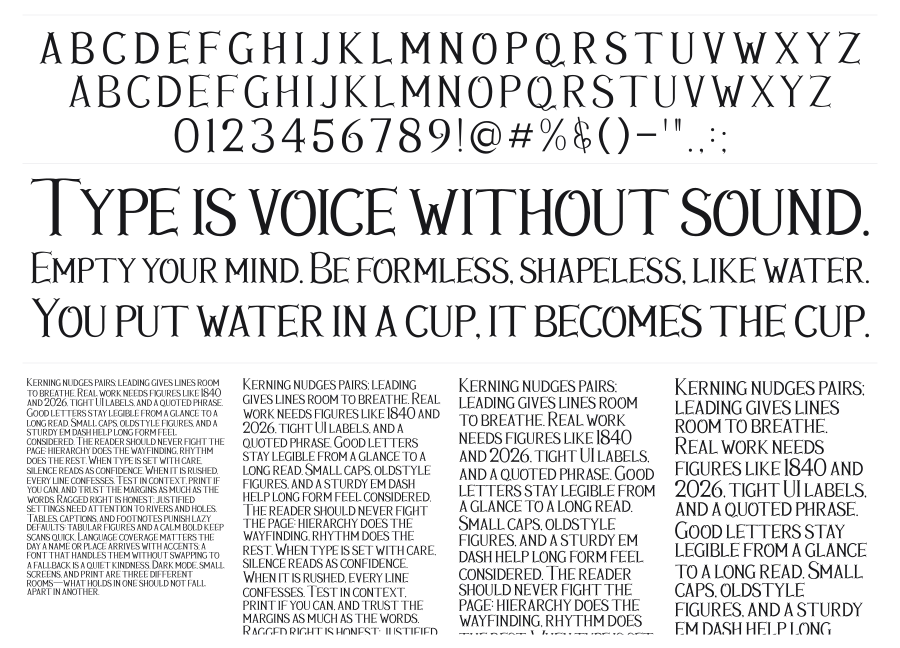
Avins Bake
by StringLabs Creative Studio · Website
Avins Bake is a tall display serif with dramatic stroke contrast and ornamental spurred terminals drawn from Art Nouveau and vintage signage traditions. The narrow proportions and playful curled details give it a handcrafted, boutique quality that reads equally well on a storefront sign or a product label. It brings nostalgic European charm without feeling heavy-handed.